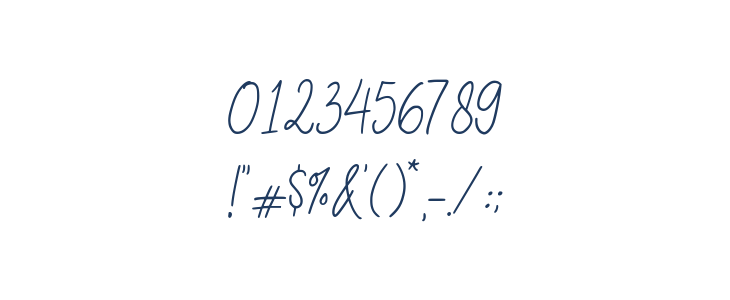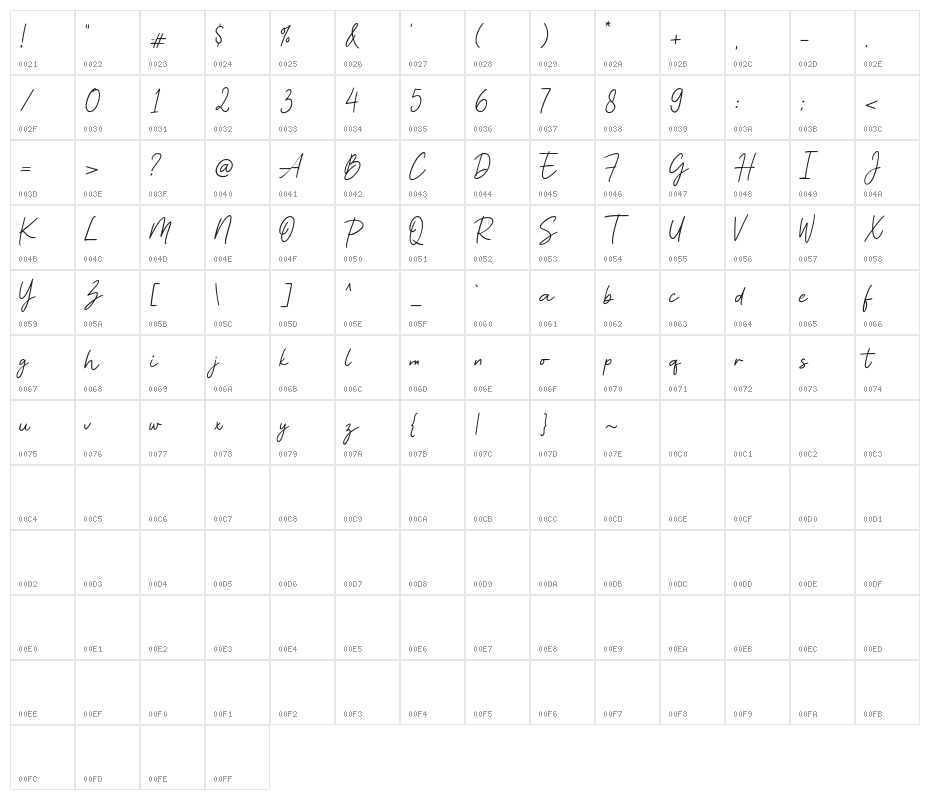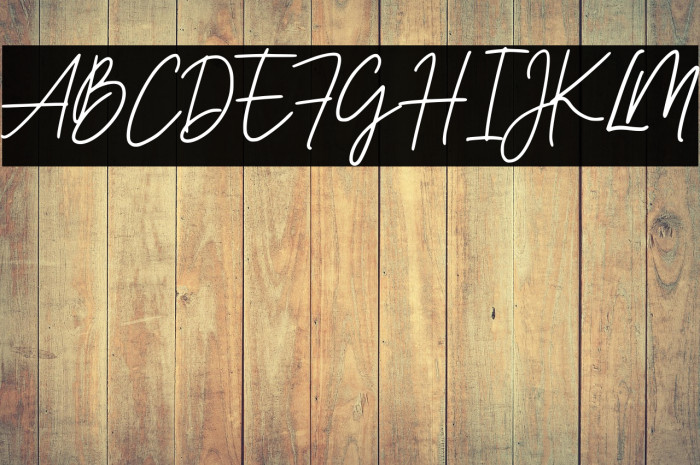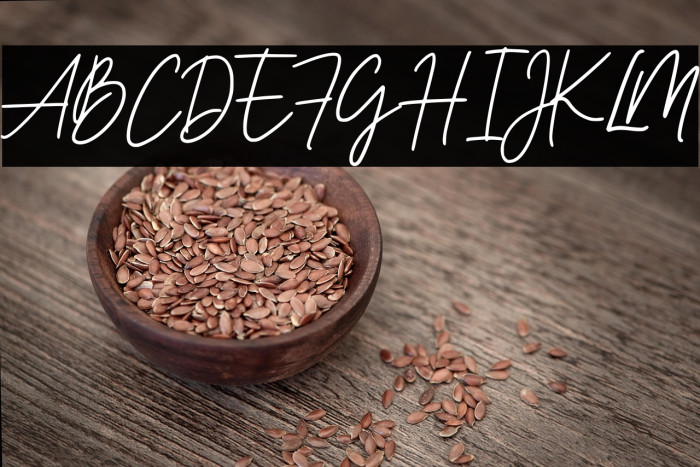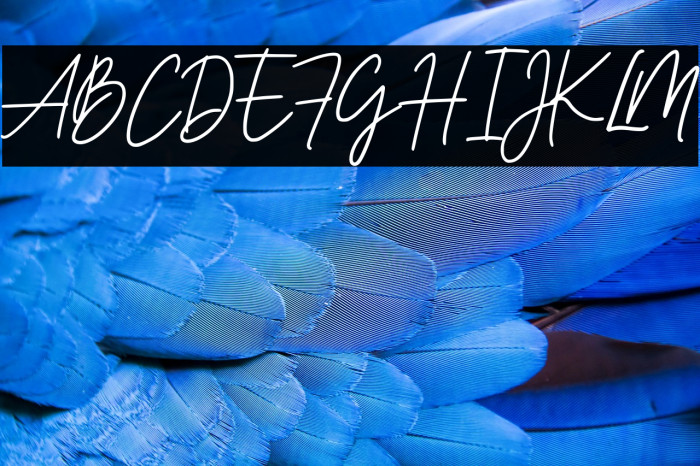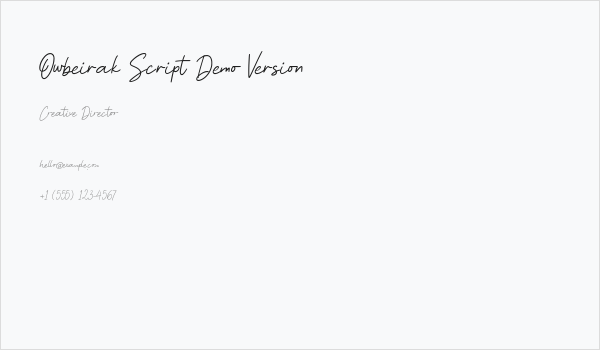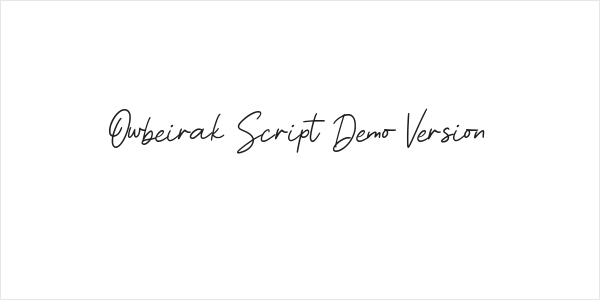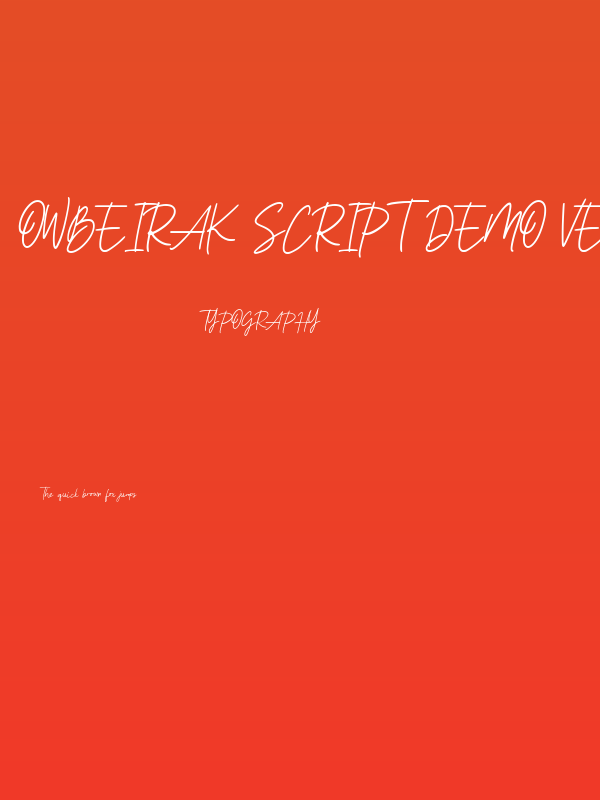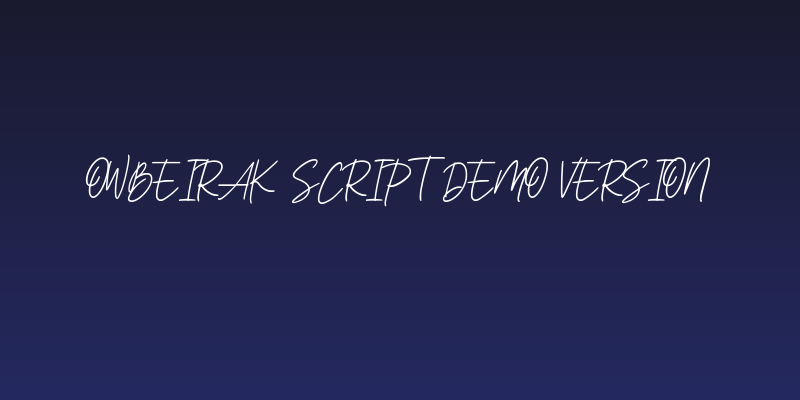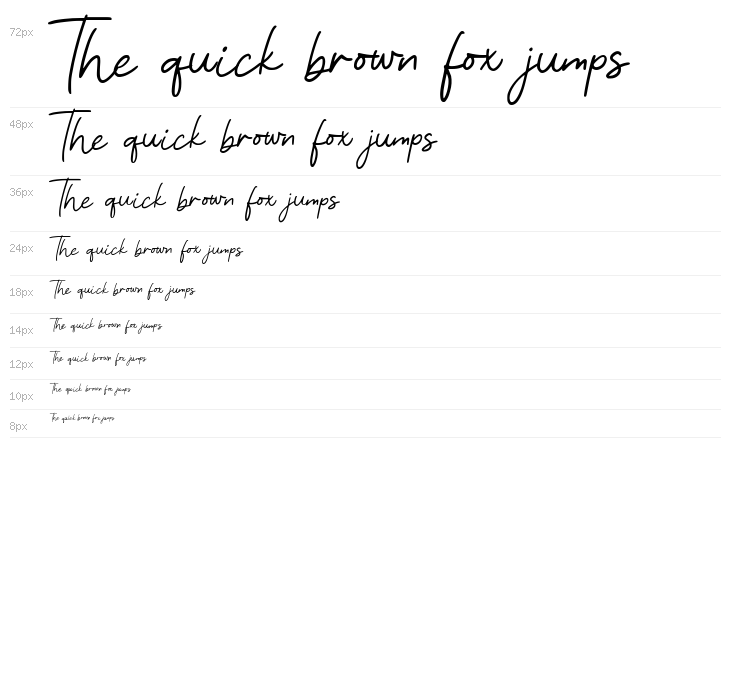
Owbeirak Script Demo Version Font
Owbeirak Script Demo Version Description
This script font exudes a casual and flowing elegance, characterized by its smooth, cursive strokes that mimic natural handwriting. The letters are interconnected, creating a seamless and fluid appearance that is both stylish and approachable. The uppercase letters are slightly more elaborate, with some featuring playful loops and swirls, while the lowercase letters maintain a consistent, easy-to-read form. The numerals and special characters are designed to match the overall aesthetic, ensuring a cohesive look across all text. This font's organic and personal touch makes it ideal for projects that require a human element, such as invitations, greeting cards, and personal branding.
| Overall Style | Casual, Elegant |
| Proposed Projects | Ideal for invitations, greeting cards, personal branding, and any project requiring a human touch. |